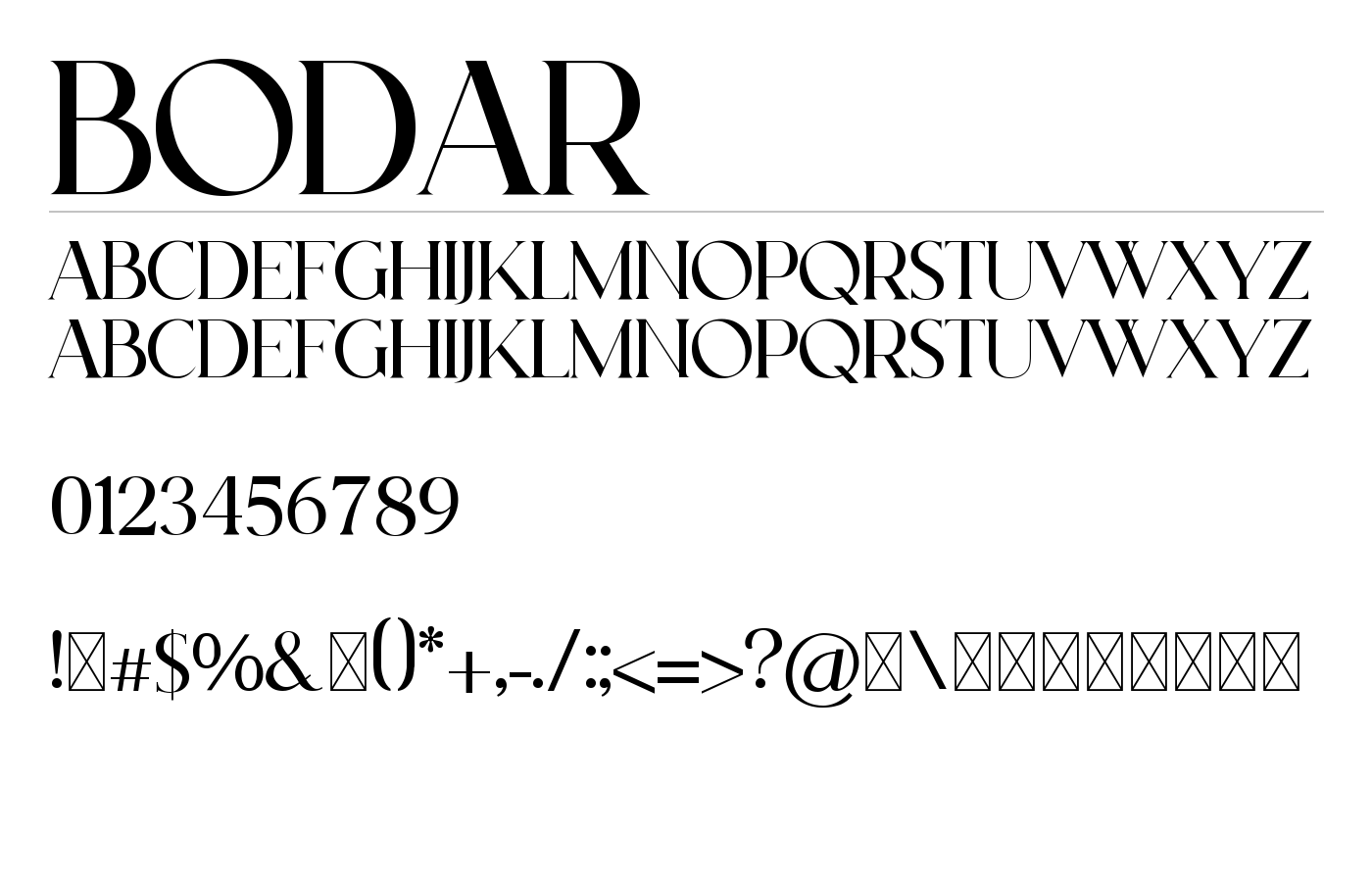
BODAR is an elegant serif font that features high contrast between thick and thin strokes, giving it a refined and sophisticated appearance. Its narrow and tall letterforms with sharp, tapered serifs evoke a classic, luxurious style perfect for upscale branding, editorial headlines, and fashion-related design. This font works especially well in contexts where a timeless and graceful impression is desired.
BODAR Font
About BODAR Font